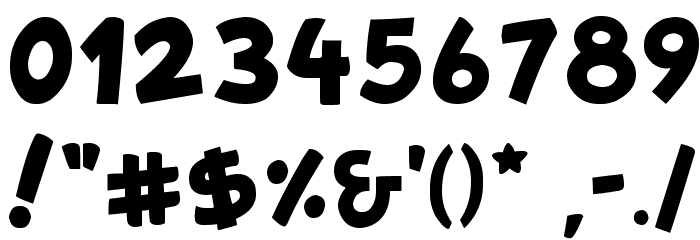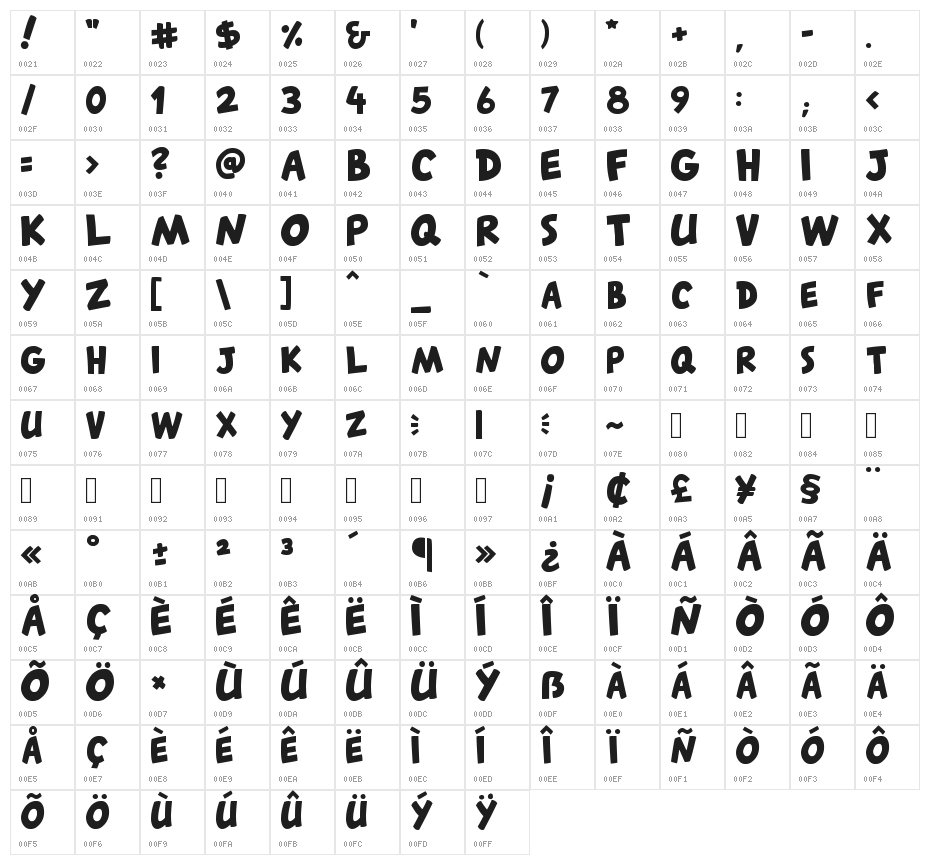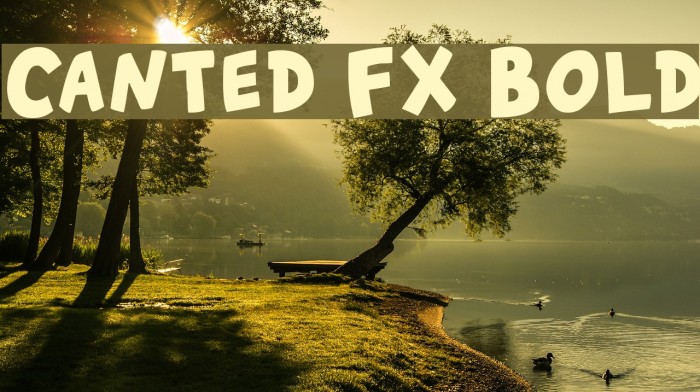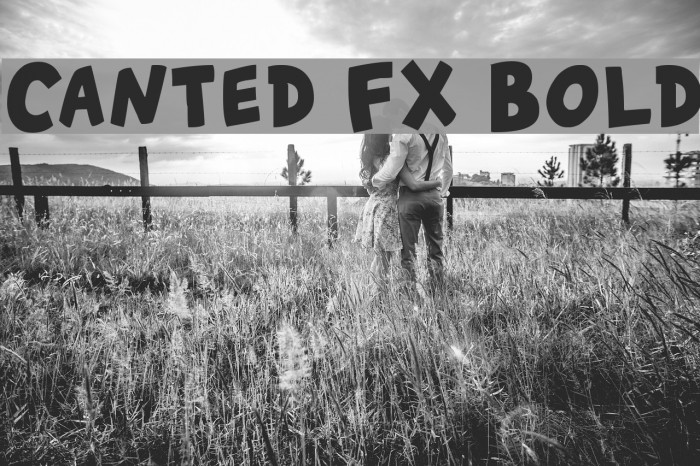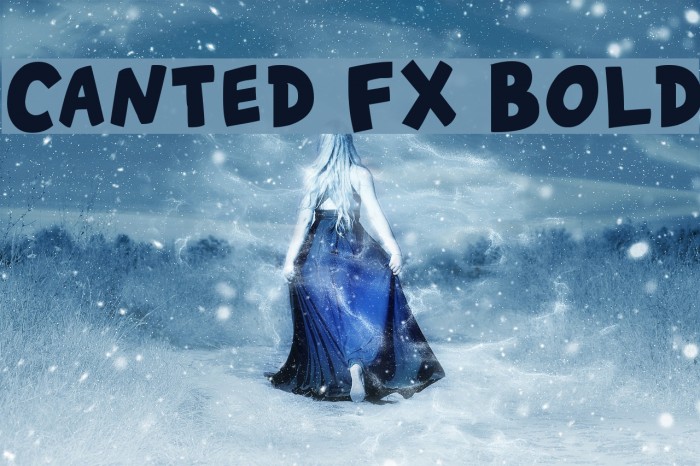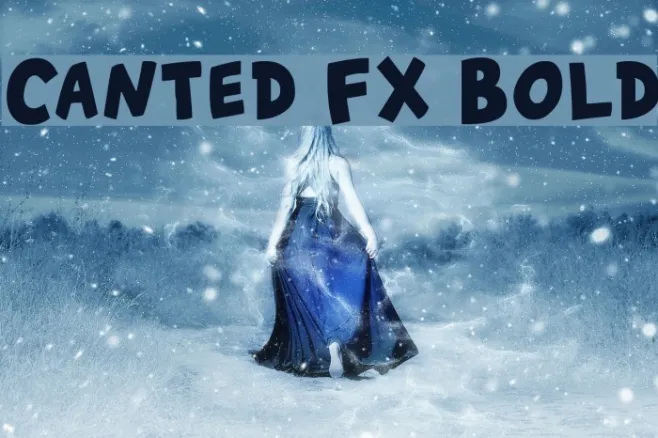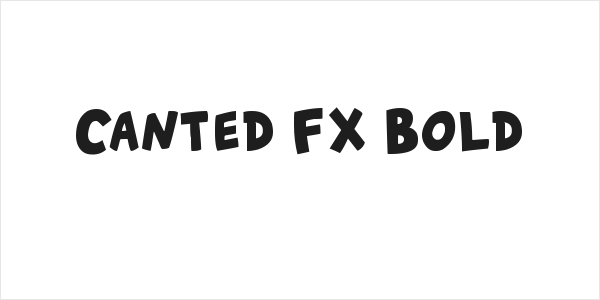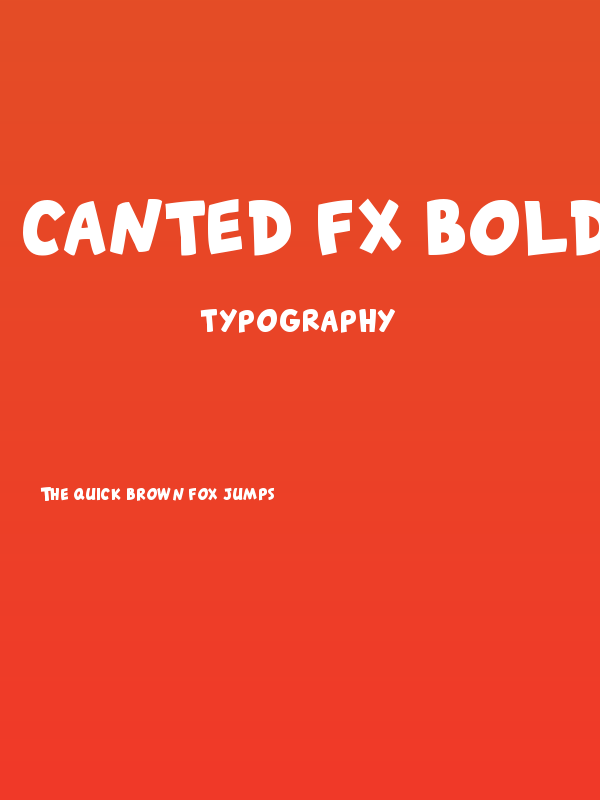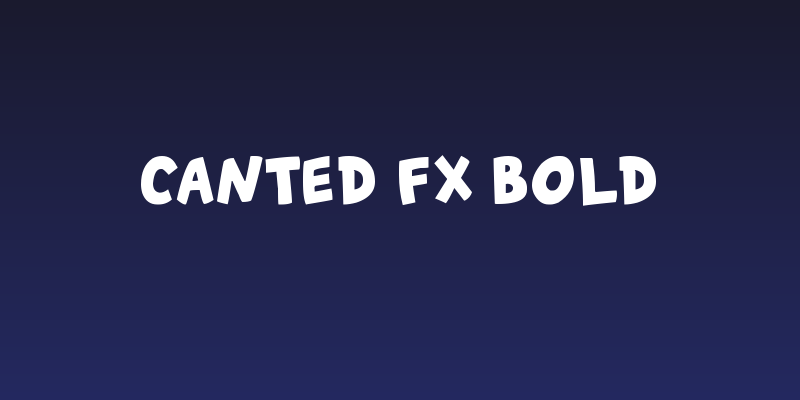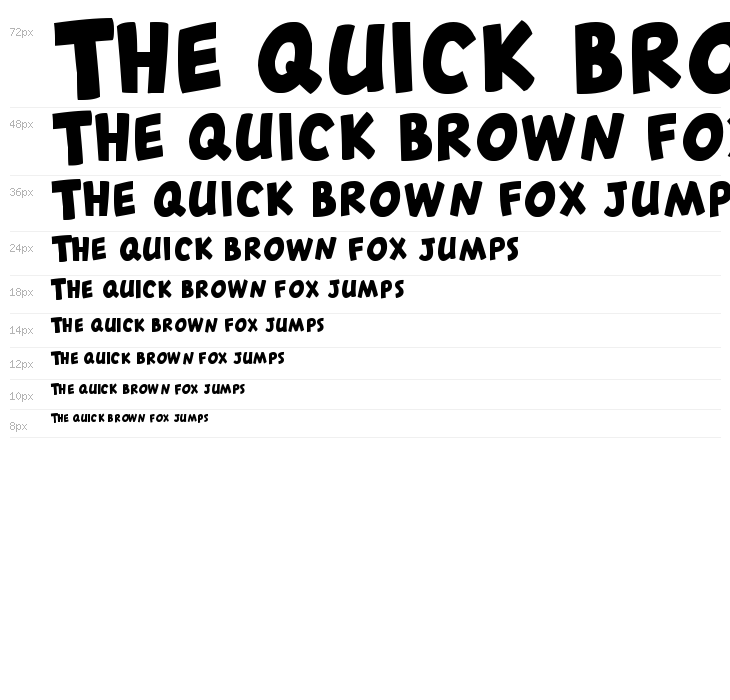
Canted FX Bold Font
Canted FX Bold Description
This font exhibits a bold and playful style with a slightly irregular, hand-drawn appearance. The characters are thick and rounded, giving a friendly and approachable feel. The uppercase and lowercase letters maintain a consistent weight, providing a cohesive look across the alphabet. The numbers and special characters follow the same design principles, ensuring uniformity. The overall design is dynamic and energetic, making it suitable for projects that require a lively and informal touch.
| Overall Style | Playful, Informal |
| Proposed Projects | Ideal for children's books, comic strips, playful branding, posters, and casual invitations. |